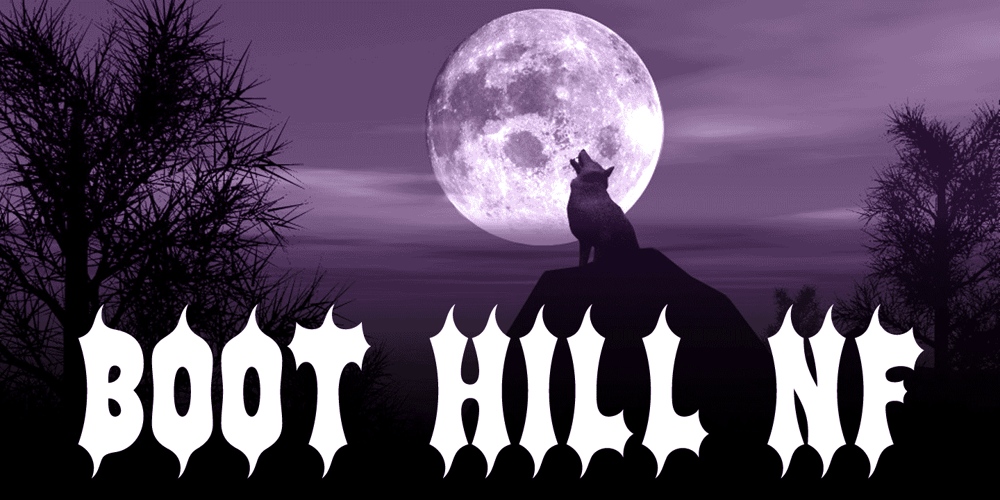
Boot Hill NF Font Family was designed by Nick Curtis and published by Nick’s Fonts. Boot Hill NF contains 1 styles and family package options. Here’s an unusual take on the classic Tuscan face of the 1880s. The unusual finials lend a slightly spooky feel to the face, hence its current name. Both versions support the Latin 1252, Central European 1250, Turkish 1254 and Baltic 1257 codepages.